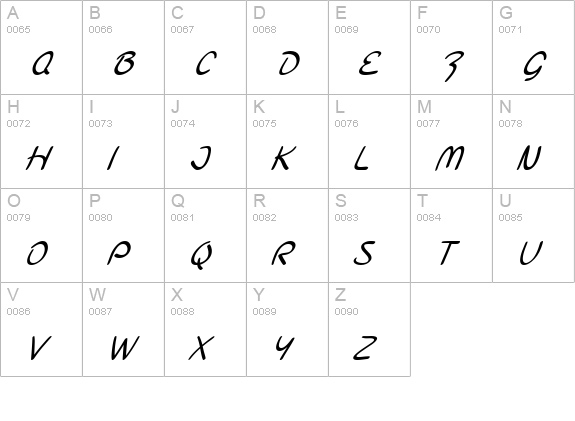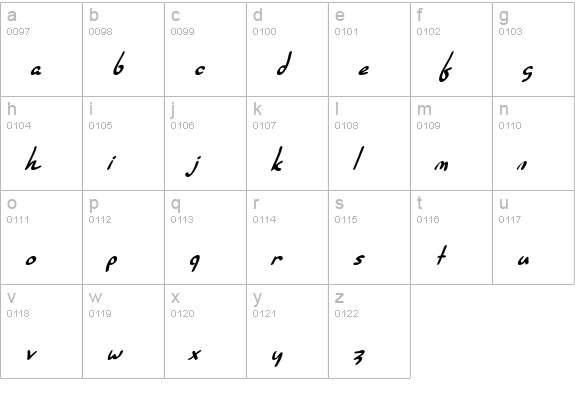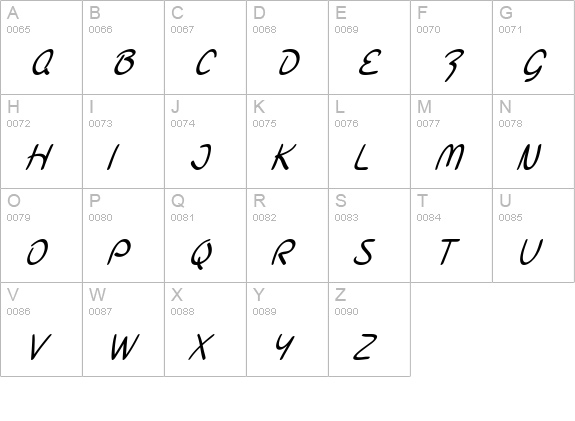
SF Burlington Script Bold Italic Font Details
SF Burlington Script Bold Italic is a strong, high-contrast, italic variant in the SF typeface family \xE2\x80\x94 well suited to headlines, attention-grabbing titles, and strong calls-to-action.
Introducing the SF Burlington Script Bold Italic font, a captivating typeface that effortlessly combines elegance with a touch of rebellious flair. This font is perfect for adding a unique and stylish touch to any design project. With its bold and italicized letterforms, SF Burlington Script Bold Italic commands attention and exudes confidence. Its flowing lines and intricate details create a sense of sophistication that is sure to captivate viewers. Whether used for branding, invitations, or editorial designs, this font is guaranteed to make a lasting impression. What sets SF Burlington Script Bold Italic apart is not only its striking aesthetics but also its accessibility. This font is freely available to download at FontsMarket.com, ensuring that designers of all levels can experience its beauty and versatility. Whether you are a seasoned professional or a passionate hobbyist, this font invites you to unleash your creativity and bring your visions to life. Embrace the freedom of expression that SF Burlington Script Bold Italic offers and elevate your designs to new heights. Its versatility allows it to effortlessly adapt to various design styles, from modern and edgy to timeless and classic. With its wide range of potential applications, this font is a must-have addition to any designer's toolkit. Experience the power of SF Burlington Script Bold Italic and let your imagination run wild. Its striking presence and attention to detail will transform your designs into works of art. Download this font for free at FontsMarket.com and embark on a design journey that is as limitless as your creativity.